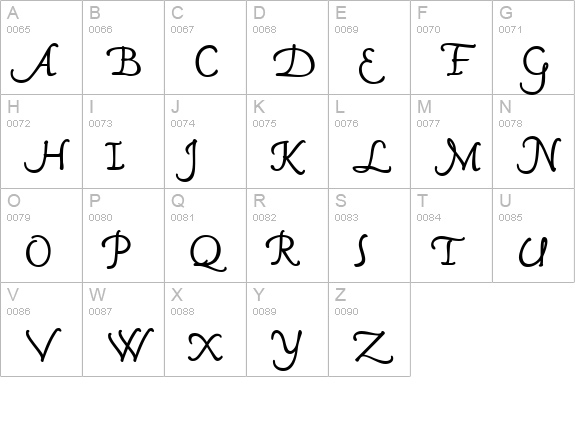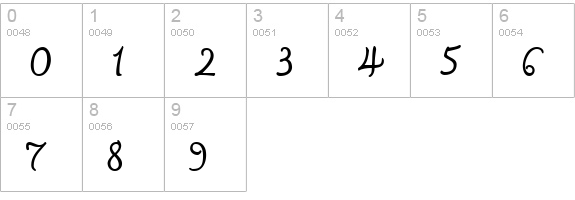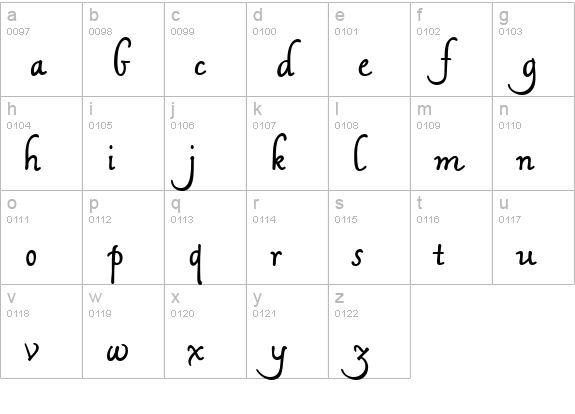
Mama Script Alternates Font Details
Introducing Mama Script Alternates, a beautifully crafted font that exudes elegance and charm. This versatile script font is perfect for a wide range of design projects, from wedding invitations to branding materials and everything in between. Mama Script Alternates features a delightful combination of smooth curves and intricate details, giving your words a sense of sophistication and grace. Its flowing, handwritten style adds a personal touch to any design, making it a popular choice among designers and creatives alike. But what sets Mama Script Alternates apart is not just its stunning aesthetics, but also its accessibility. This font is freely available to download at FontsMarket.com, allowing you to bring your creative visions to life without breaking the bank. You can easily incorporate Mama Script Alternates into your projects, whether you're a professional designer or an enthusiastic DIYer. With its wide range of alternate characters and ligatures, Mama Script Alternates offers endless possibilities for customization. This font allows you to experiment with different letter combinations, creating unique and eye-catching designs that truly stand out. Whether you're designing a logo for a luxury brand, crafting a heartfelt greeting card, or creating stunning social media graphics, Mama Script Alternates is the perfect choice. Its timeless appeal and versatility make it a must-have font for any designer's toolkit. Download Mama Script Alternates today from FontsMarket.com and elevate your designs to new heights of beauty and sophistication. Let your creativity soar with this free font that combines elegance and accessibility seamlessly.